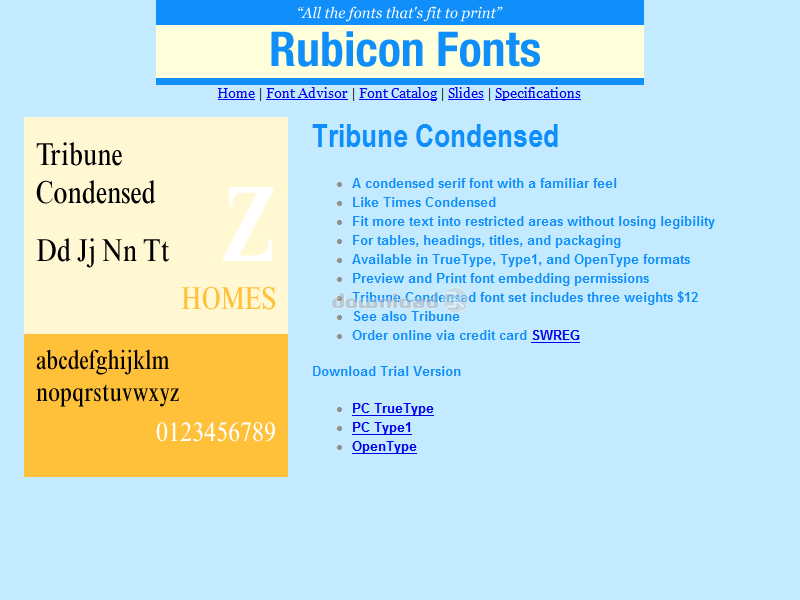
"Condensed serif book font, familiar look"
Condensed serif book font with a familiar feel. Like Times Condensed. Fit more text into restricted spaces without losing legibility. For tables, headings, and packaging. Recommended size 12 points. Accurate and hinted, matching font metrics, standard character set, kerning pairs. Professional print quality for inkjet, laser, typesetter to 3500 dpi. Purchasers receive 3 font variants as follows: Roman, Italic, Bold.Requirements: Older versions of Windows require Adobe Type Manager.